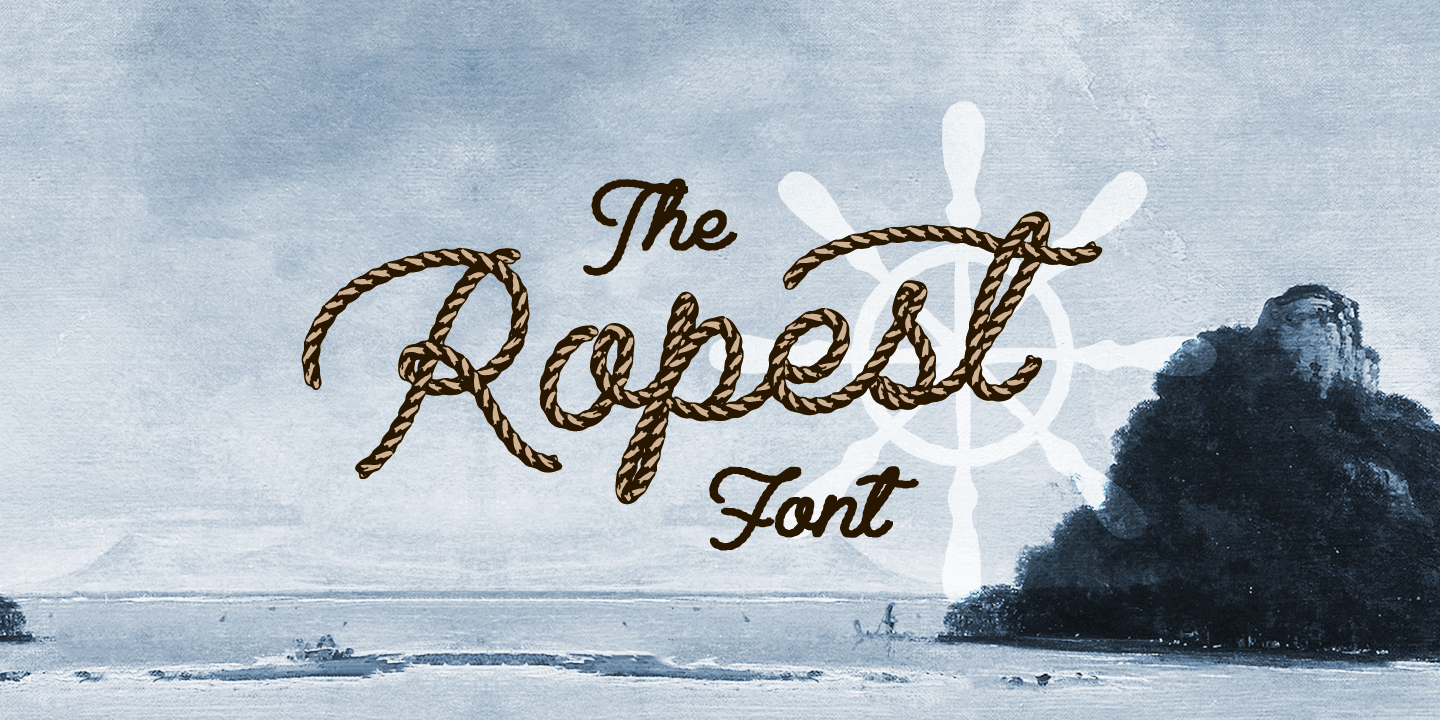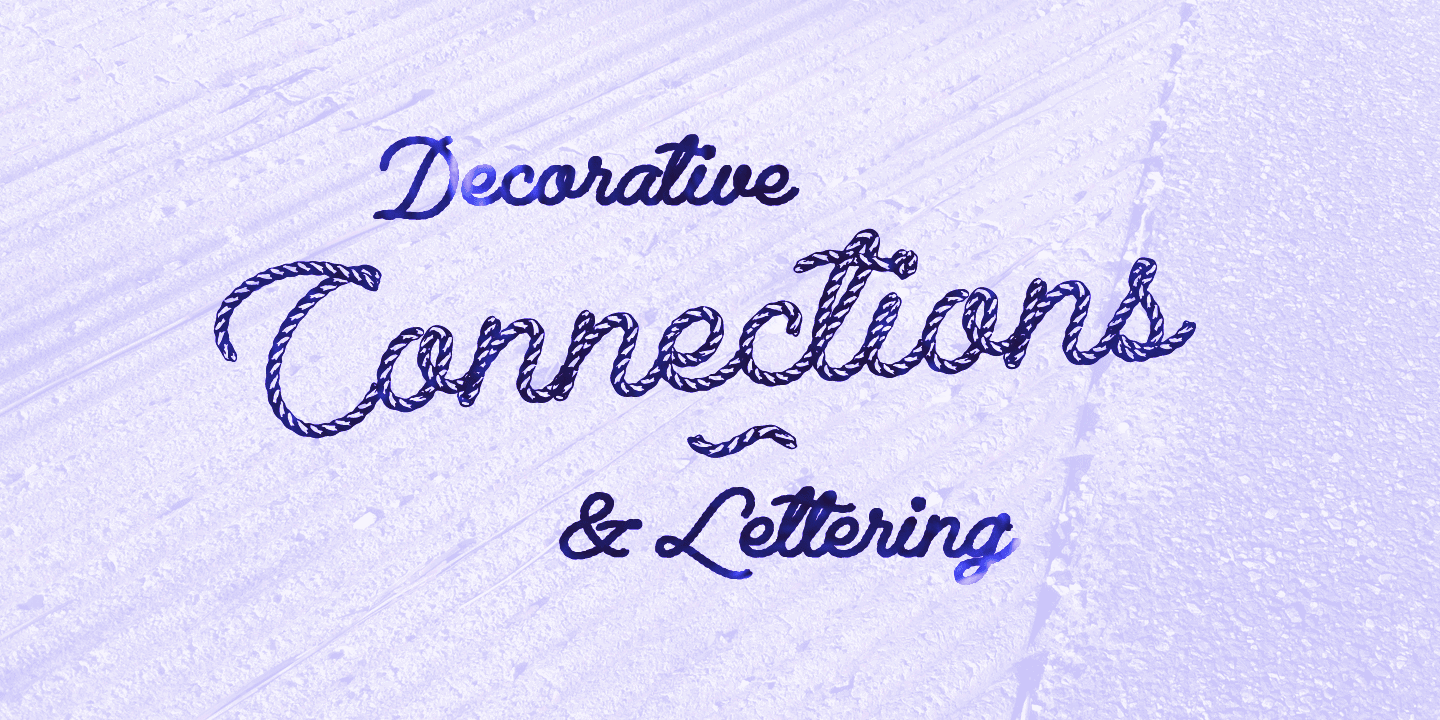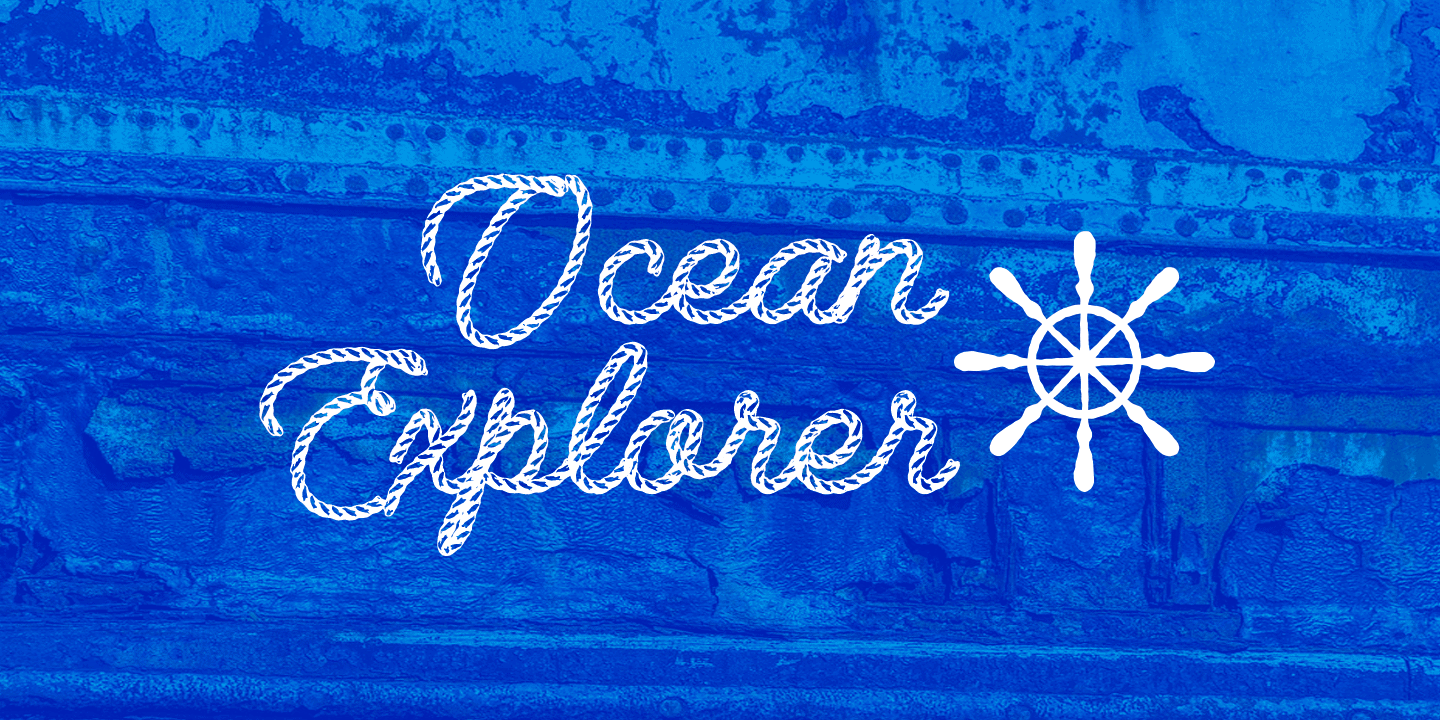
Ropest is a decorative script typeface, created by Måns Grebäck during 2018.
It keeps the same quality as any cursive font, while also being a brave display typeface. The family comes in two styles; one primary that has the real rope appearance; one Black or solid, to be used by itself or as a background to the rope font.
It contains ligatures, and has support for all Latin based European languages.